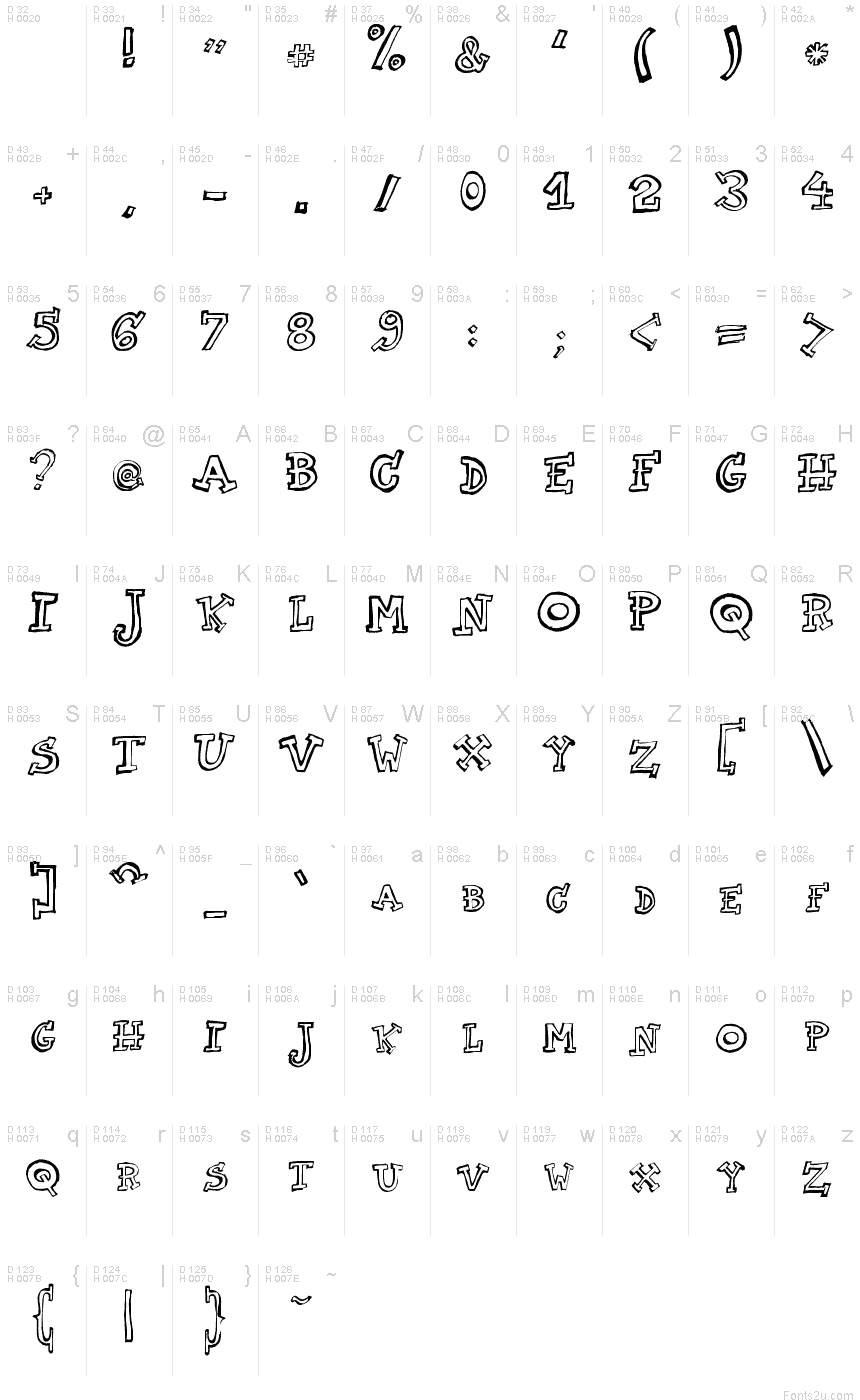
TWO AM by Aga Silva is a free outlined cartoon display font with broad, hand-drawn capitals and lively slab serifs. The uneven contours make each letter resemble inked artwork rather than precise typesetting. Shifting stroke widths and offset shadows give the lettering a chunky, animated profile.
Packaging is an especially good setting for its illustrated edges, with posters and merchandise offering equally convincing homes for the same offbeat forms. Its approachable humor suits children's entertainment and casual food brands.